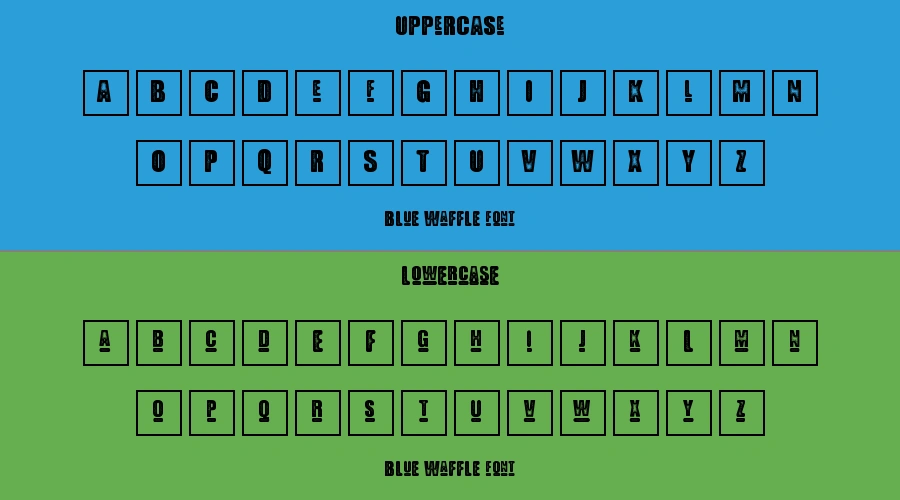
About Blue Waffle Font
Blue Waffle Font embodies typographic excellence through its masterful combination of geometric construction and adaptability. Created for literary works, this typeface delivers exceptional durability and generational appeal across all applications. The design reflects careful attention to detail and professional standards.
Advanced capabilities include distinctive straight stems and versatile case-sensitive forms, giving designers creative control. When used in instruction steps, Blue Waffle Font exhibits remarkable data presentation. The harmonious balance between aperture size and creative expression sets this typeface apart.